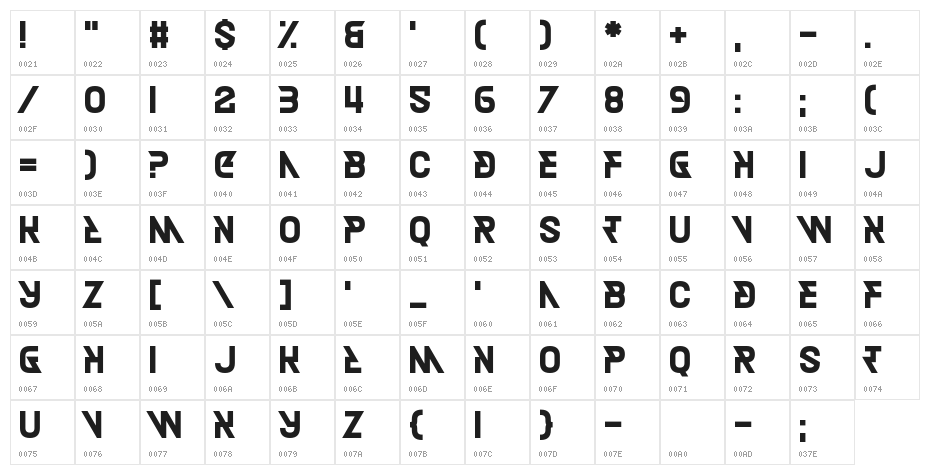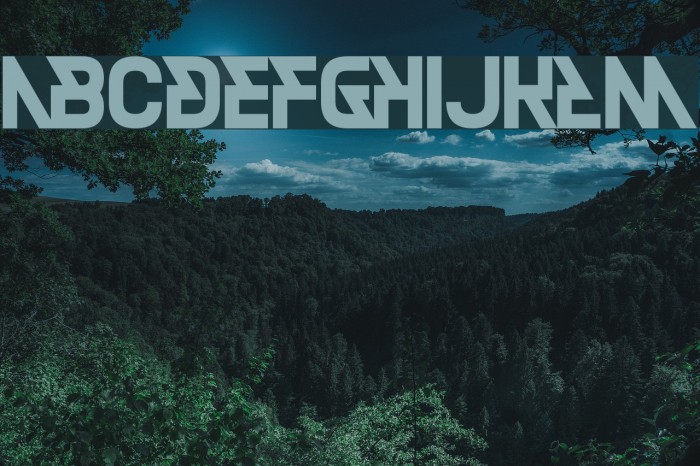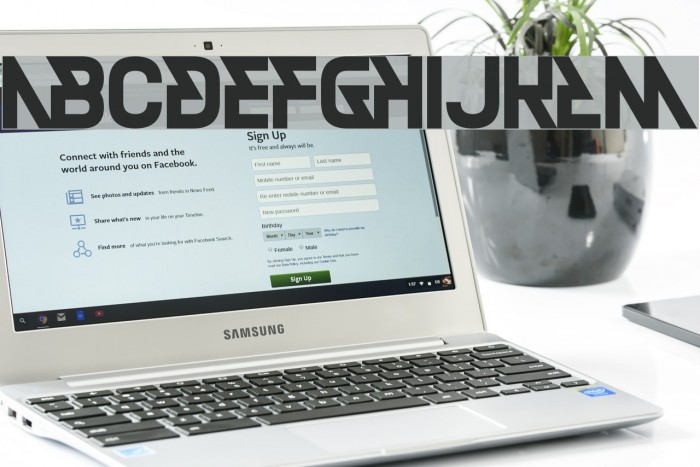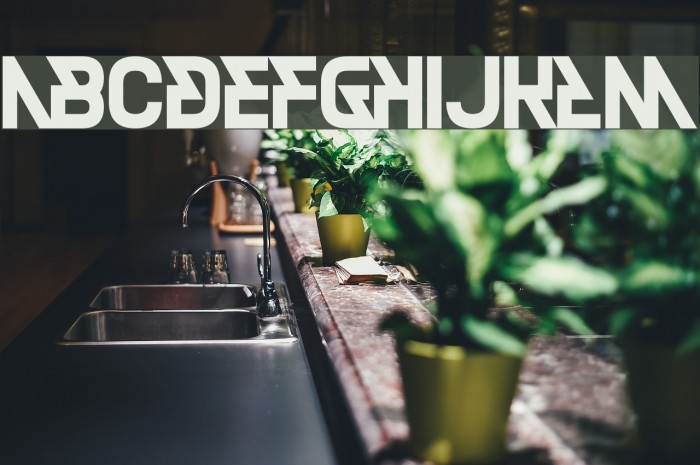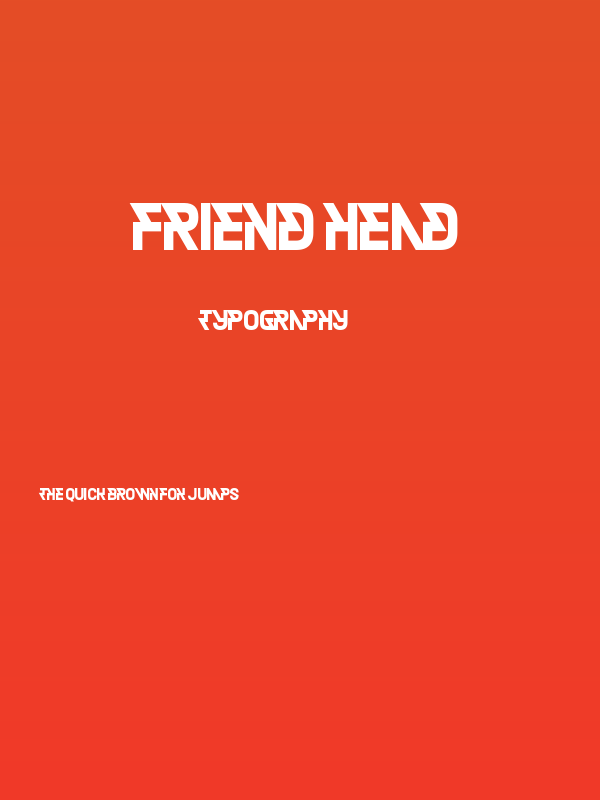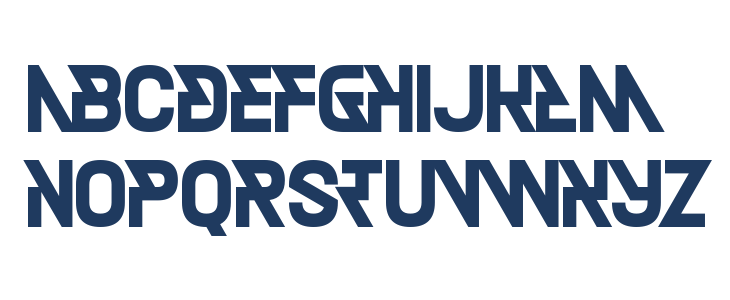
Friend Head Font
Friend Head Description
This font is a bold and striking display typeface characterized by its geometric and angular design. The letters are constructed with sharp edges and a futuristic aesthetic, making it ideal for attention-grabbing headlines and modern branding. The uppercase and lowercase letters share a consistent style, with unique cuts and angles that give the font a dynamic and edgy appearance. The numerals and special characters maintain this bold and geometric theme, ensuring a cohesive look across all text elements. The font's strong presence and distinctive style make it suitable for projects that require a modern and impactful visual identity.
| Proposed Projects | Ideal for modern branding, sci-fi themed projects, posters, and digital media. |